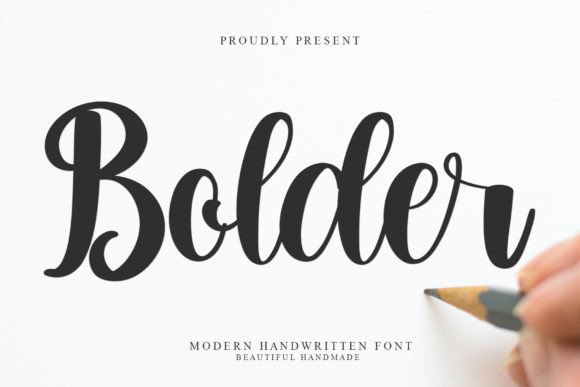
The Bolder Font: Elevate Your Designs with Timeless Elegance
Have you ever been in the middle of a design project, and suddenly, you’re stuck on finding the perfect font? I recall a recent experience where I was working on a client’s branding project, and I just couldn’t seem to find a font that captured the essence of their brand. That’s when I stumbled upon the Bolder font, and it completely transformed my design. In this article, we’ll dive into the world of Bolder, a stylish handwritten font that’s sure to elevate your designs.
A Personal Review: What I Love About Bolder
So, what makes Bolder so special? Here are a few things that I absolutely love about this font:
• ✨ Contemporary atmosphere: Bolder has a fresh and modern feel to it, making it perfect for designs that require a bit of sophistication.
• ✅ Impeccable form: The font’s classic calligraphy inspiration shines through in its beautiful, flowing lines.
• 💫 Balanced and varied: Bolder’s unique character set offers a range of options to keep your designs interesting and dynamic.
While Bolder is an amazing font, there are a few minor quirks to be aware of:
• 🤔 Limited use in body text: Due to its elegant, cursive nature, Bolder might not be the best choice for lengthy body text. It’s better suited for headings, titles, or short paragraphs.
• ⚠️ Some glyphs require manual adjustment: Depending on the platform you’re using, you might need to manually adjust certain glyphs to get the best results.
The Designer Inspiration Behind Bolder
Bolder’s story begins with a passion for timeless classic calligraphy. Its designer drew inspiration from the elegant lines and flowing curves of traditional calligraphy, merging them with modern sensibilities to create a truly unique font. The result is a font that’s both classic and contemporary, perfect for designs that require a touch of sophistication.
Here are some frequently asked questions about Bolder:
What is Bolder’s primary use? Bolder is ideal for designs that require a touch of elegance and sophistication, such as headings, titles, or short paragraphs.
Can I use Bolder for body text? While possible, Bolder is better suited for shorter text passages due to its elegant, cursive nature.
Is Bolder suitable for digital use? Absolutely! Bolder’s clean lines and modern feel make it perfect for digital designs, such as websites, social media graphics, or presentations.